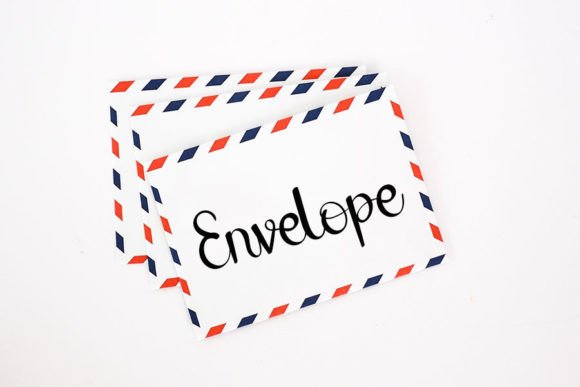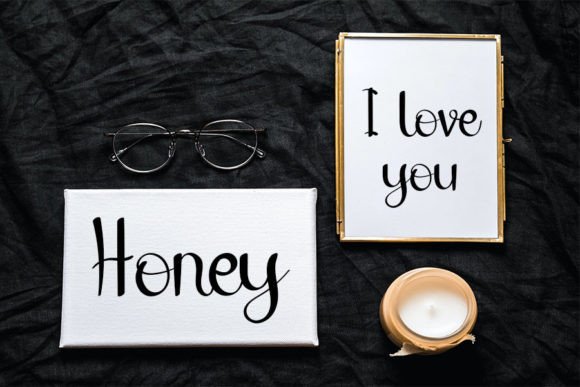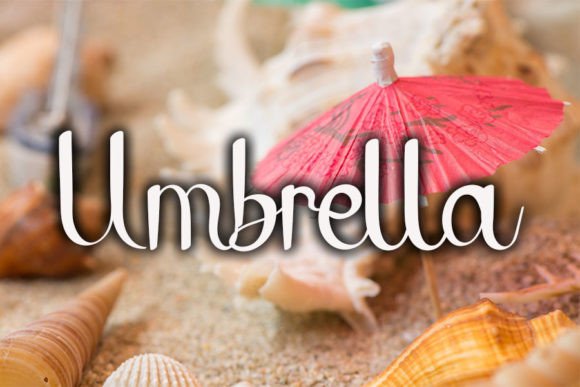
Introduction to Mailbox Font
Mailbox is a colorful handwritten font carefully created with a touch of elegance.
Clean and a little bit quirky, this font is the perfect fit for all of your logos, branding, social media, and crafty DIY projects .
Mailbox Font offers exceptional quality and versatility, making it a valuable addition to your design toolkit. Whether you’re creating for personal projects or commercial use, Mailbox Font delivers professional results.